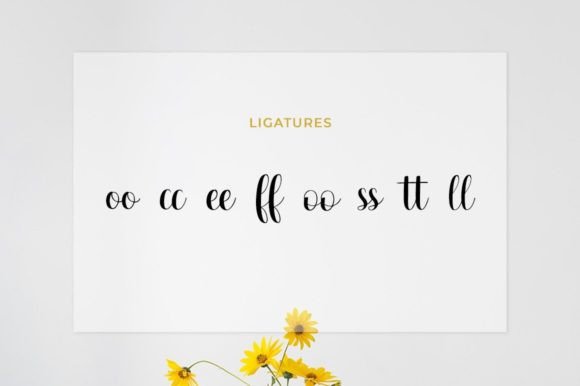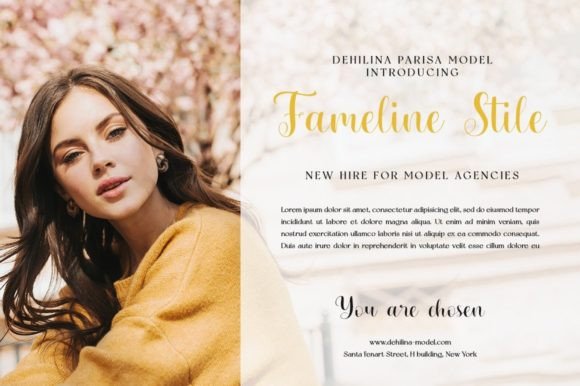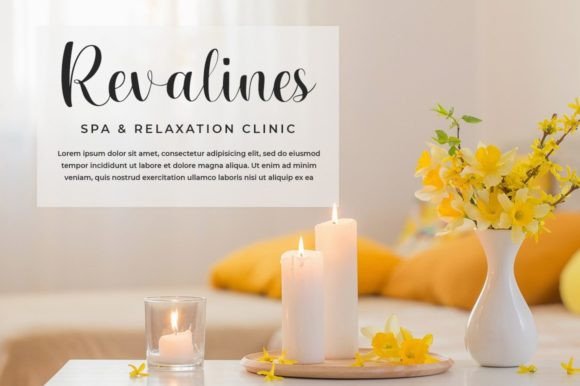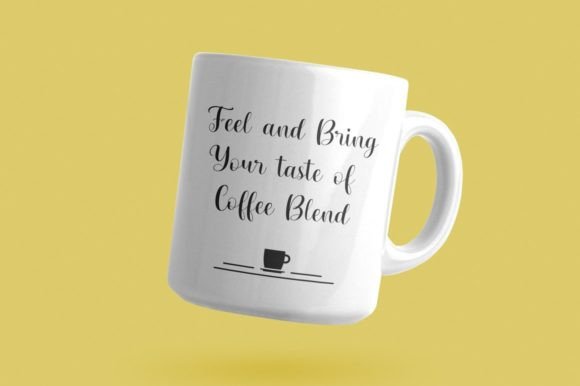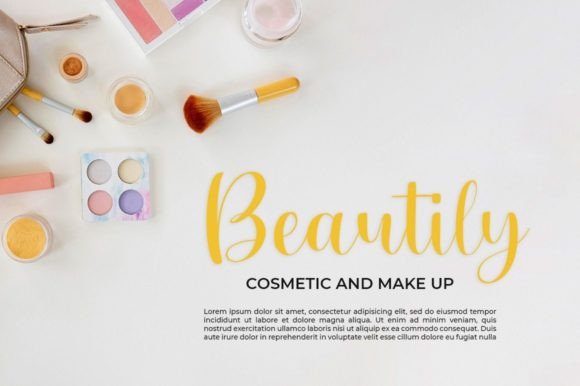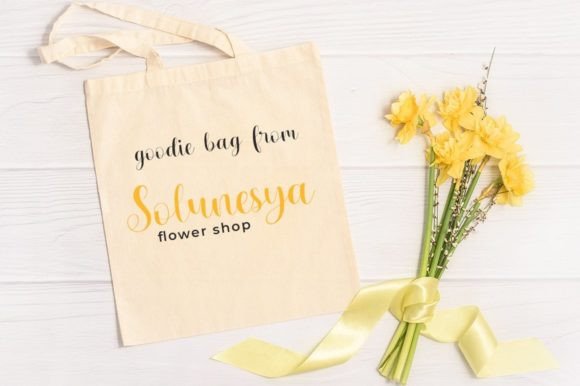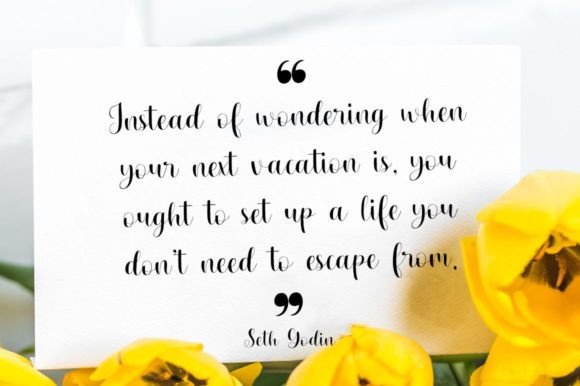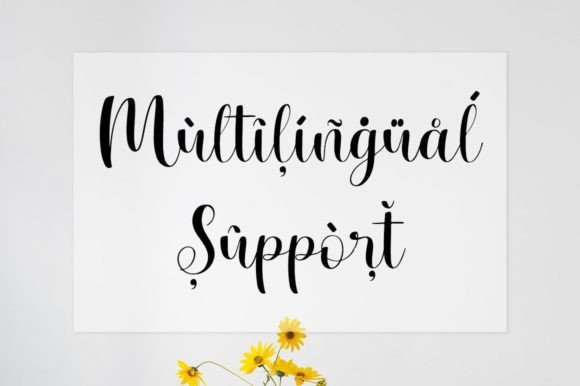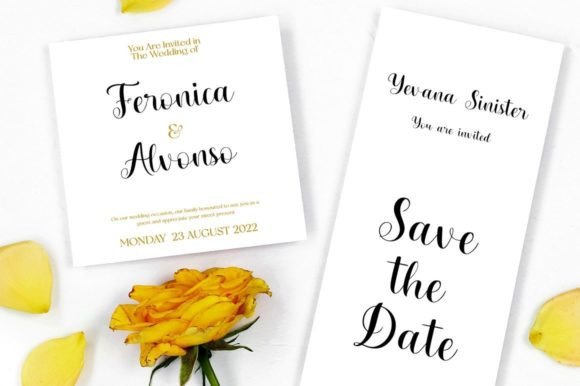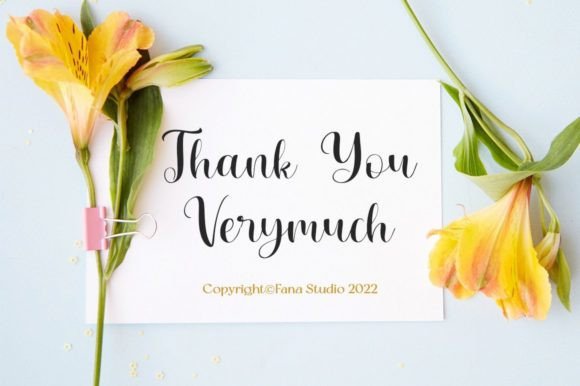
Sublime Font
About Sublime Font
“Sublime Script” is introduced as a stylish font style, designed to bring an elegant, classy, and modern look to your creative projects. This beautiful script font offers a personal touch, making it a versatile choice for a variety of applications.
The characteristics of “Sublime Script” make it suitable for a wide range of projects, including logos and branding, invitations, stationery, wedding designs, social media posts, advertisements, product packaging, product designs, labels, photography, watermarks, special events, and any project that benefits from a handwriting taste.
Its stylish and modern aesthetic ensures that “Sublime Script” can seamlessly blend into contemporary design contexts, adding sophistication and a touch of personalization to your visuals. Whether you’re crafting a brand identity, creating elegant wedding stationery, or designing eye-catching product packaging, this font is crafted to enhance the overall appeal of your work.
In summary, “Sublime Script” is a versatile and elegant font style that caters to a diverse range of creative needs. Its ability to bring a handwriting taste to various projects makes it a valuable tool for designers seeking a stylish and modern script font for their latest art endeavors.